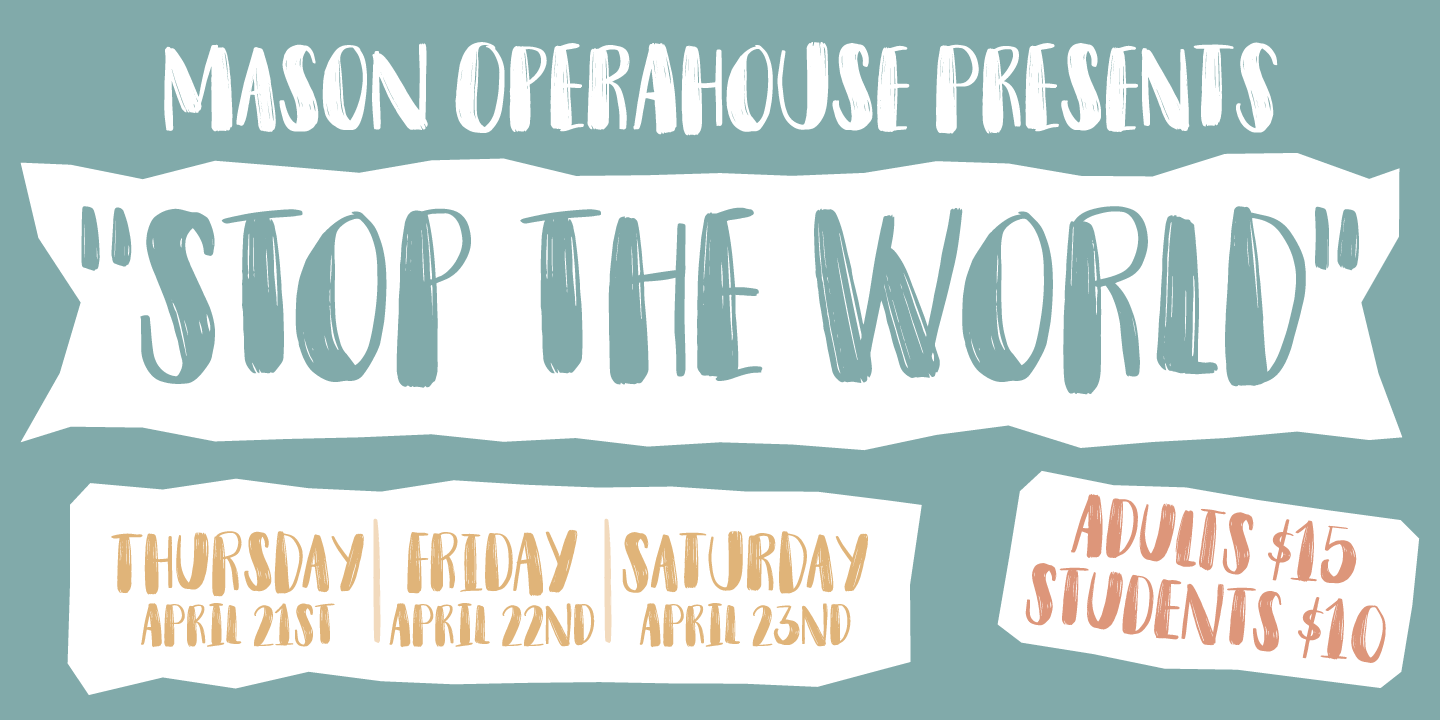
Snubnose Font is ideal for diverse design applications including playful children's book illustrations, casual brand identities, fun social media graphics, creative poster designs, quirky logo concepts, informal newsletters, comic book lettering, and contemporary advertising campaigns that require a friendly, approachable aesthetic.
What makes Snubnose Font truly exciting is its distinctive personality that combines playful charm with remarkable versatility. This unique typeface features rounded edges and compact proportions that create an instantly recognizable character, making it perfect for brands seeking to establish a friendly, approachable image. The font's carefully balanced proportions ensure excellent readability while maintaining its distinctive quirky appeal. Its informal yet professional appearance makes it suitable for both casual communications and creative commercial applications where personality matters.
The Snubnose Font family includes multiple weights and variations designed to work cohesively across different design contexts. The collection features Regular, Bold, Light, and ExtraBold weights, each maintaining the font's characteristic rounded appearance while offering varying levels of visual impact. The family also includes condensed versions for space-efficient layouts and extended character sets with international language support. Additional elements include decorative glyphs and alternative characters that enhance creative possibilities.
Creative professionals consistently choose Snubnose Font Free Download for projects requiring distinctive character and memorable visual impact. The font's compact design makes it particularly effective for headlines and display applications where space is limited but personality is essential. Its excellent legibility across various sizes ensures consistent brand communication from large signage to small mobile interfaces, making it versatile for modern multi-platform branding strategies.
The technical features of Snubnose Font include comprehensive OpenType support, contextual alternates, and carefully optimized kerning pairs that maintain the font's natural flow. The character set includes punctuation marks, symbols, and numerical figures designed to match the font's distinctive aesthetic.
For designers seeking a typeface that brings personality and warmth to their projects, Snubnose Font offers the perfect balance of character and functionality. Its ability to convey friendliness while maintaining professional quality makes it invaluable for brands targeting younger audiences or companies emphasizing approachability and innovation. The font's versatility ensures it works effectively across both digital and print applications, creating cohesive brand experiences that stand out in crowded markets.